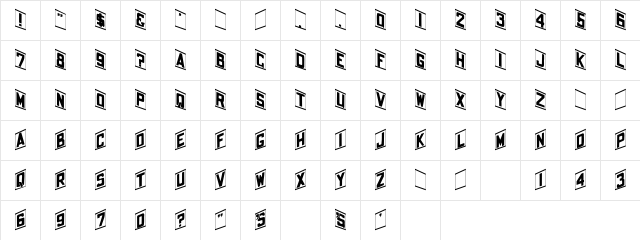
Shohl Plain Free Font
Shohl Plain
Design Context for Shohl
Shohl is a composed and adaptable typeface that performs quietly and consistently across a wide range of design contexts.